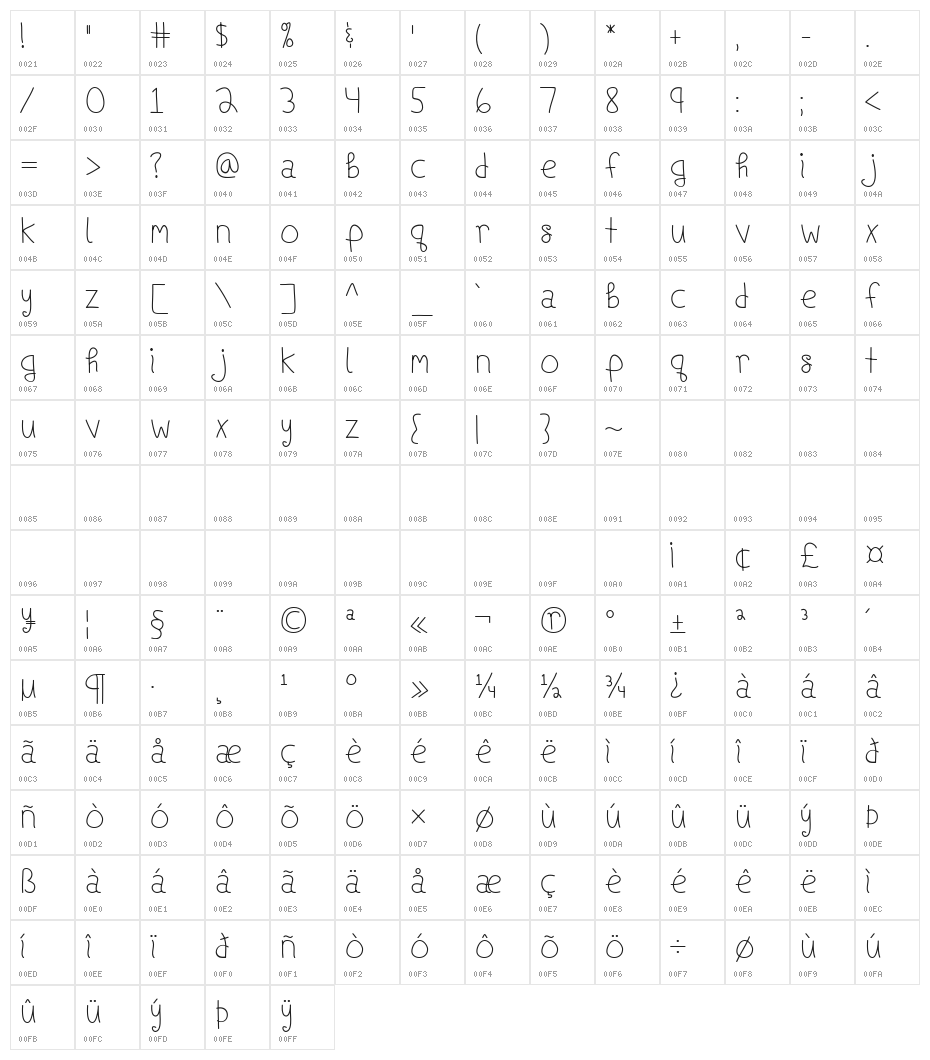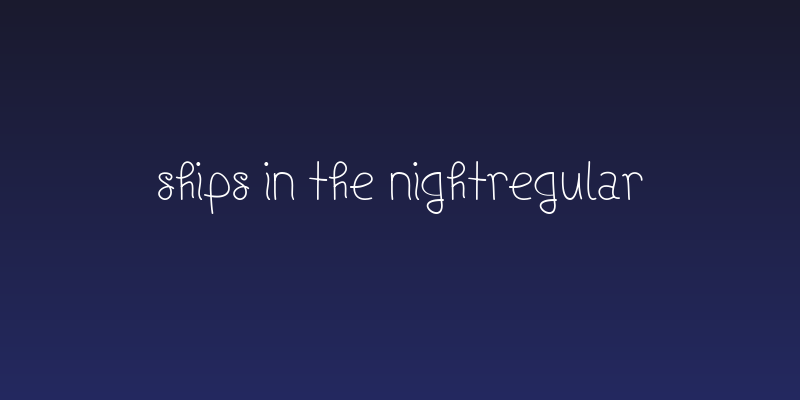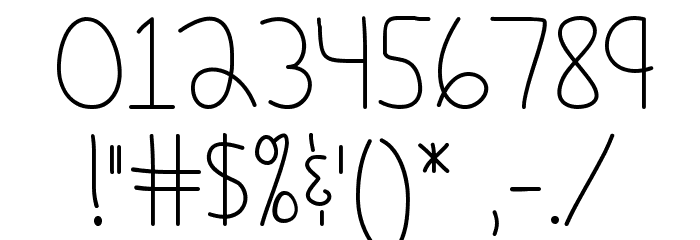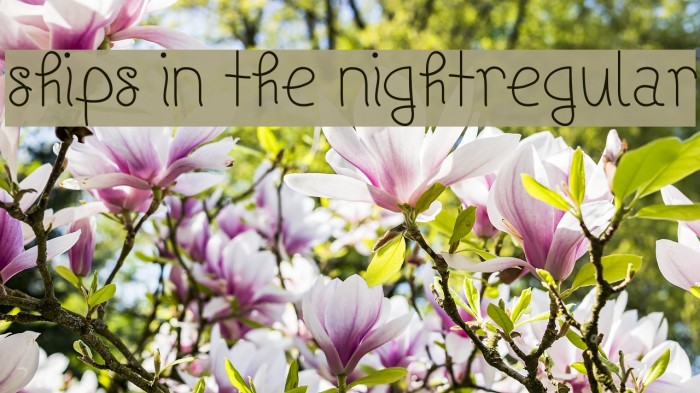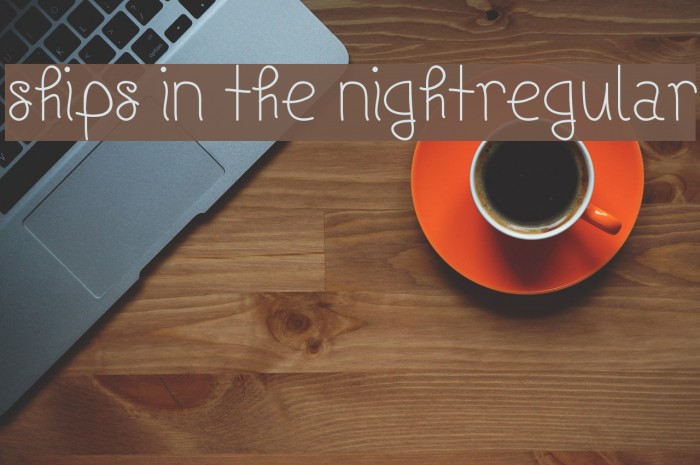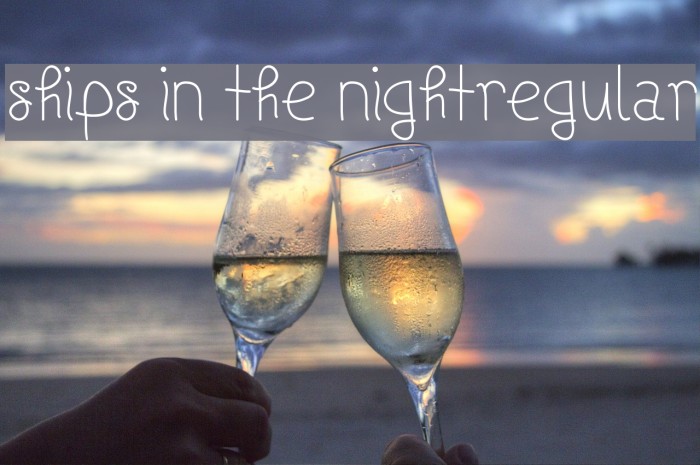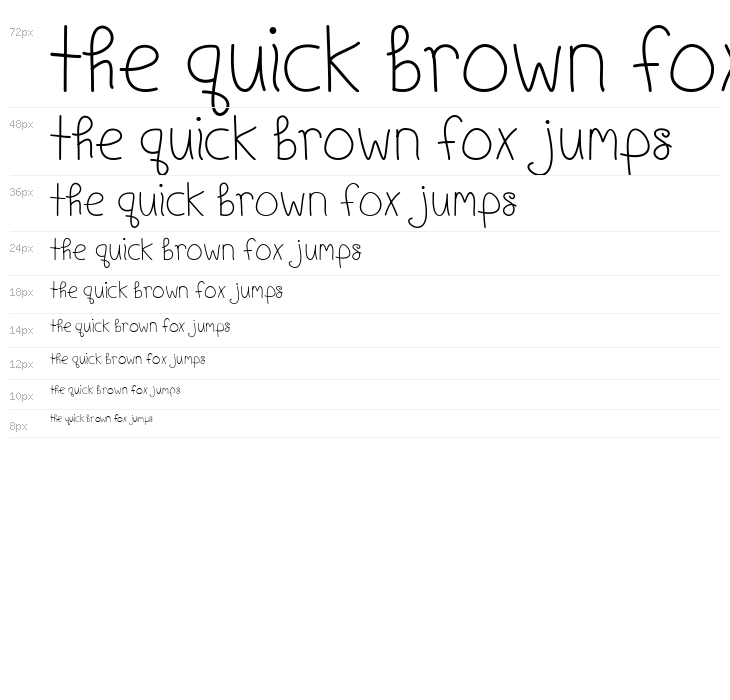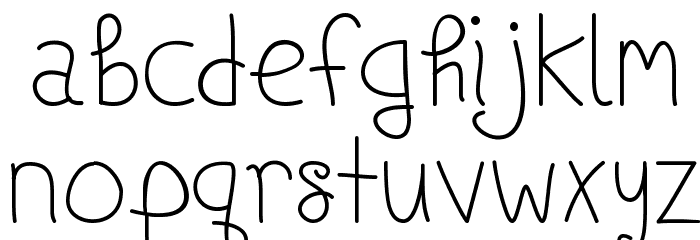
Ships In The NightRegular Font
Ships In The NightRegular Description
This font features a playful and whimsical design, characterized by its thin, rounded strokes and slightly irregular letterforms. The characters have a hand-drawn quality, giving them a casual and friendly appearance. The lowercase letters are slightly taller than usual, adding to the font's unique charm. The numerals and special characters maintain the same playful style, ensuring consistency across all glyphs. This font's informal and approachable nature makes it suitable for a variety of creative projects.
| Overall Style | Casual and playful |
| Use Case | Logos, Invitations, Children's books |
| Proposed Projects | Ideal for children's books, greeting cards, playful branding, and casual invitations. |